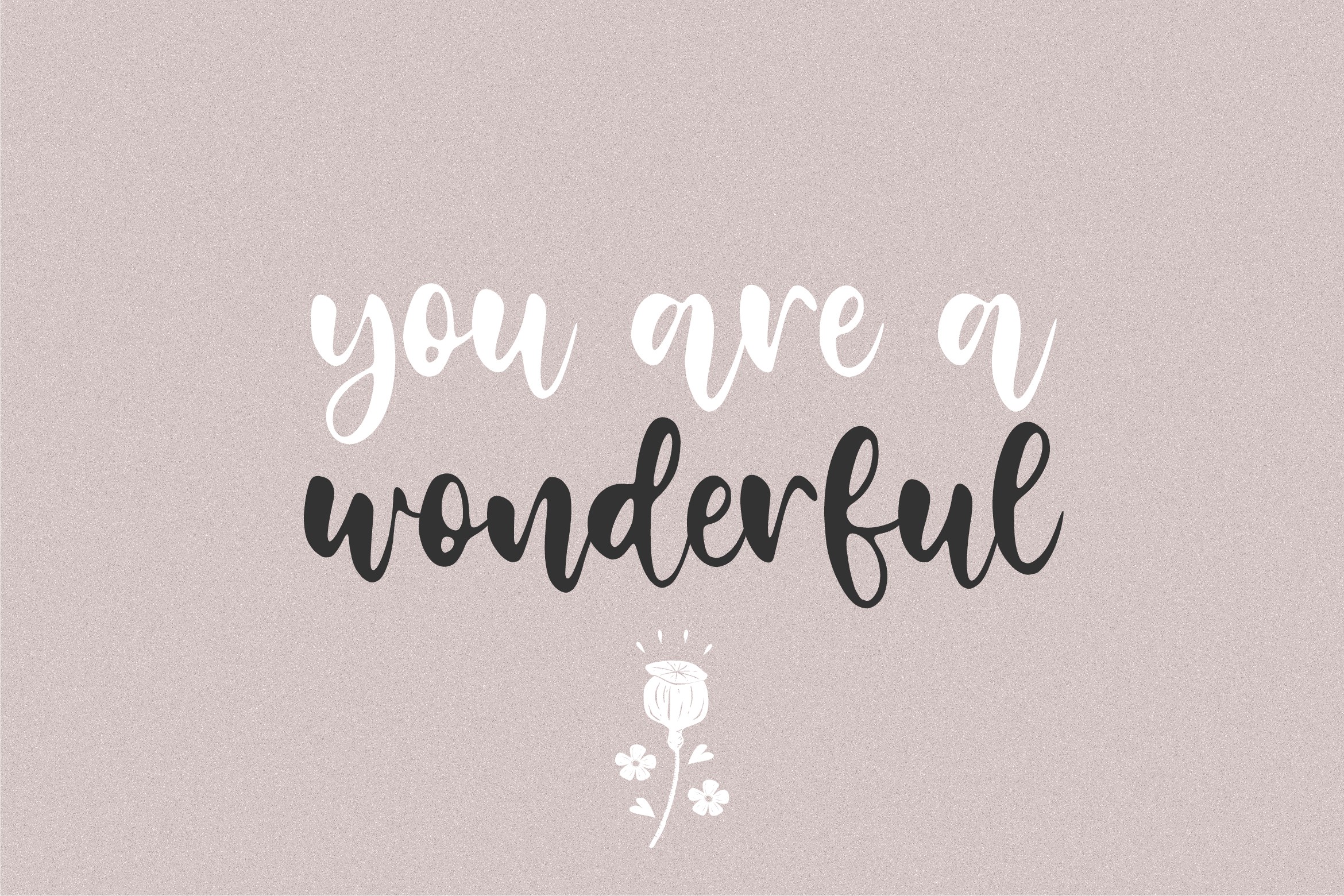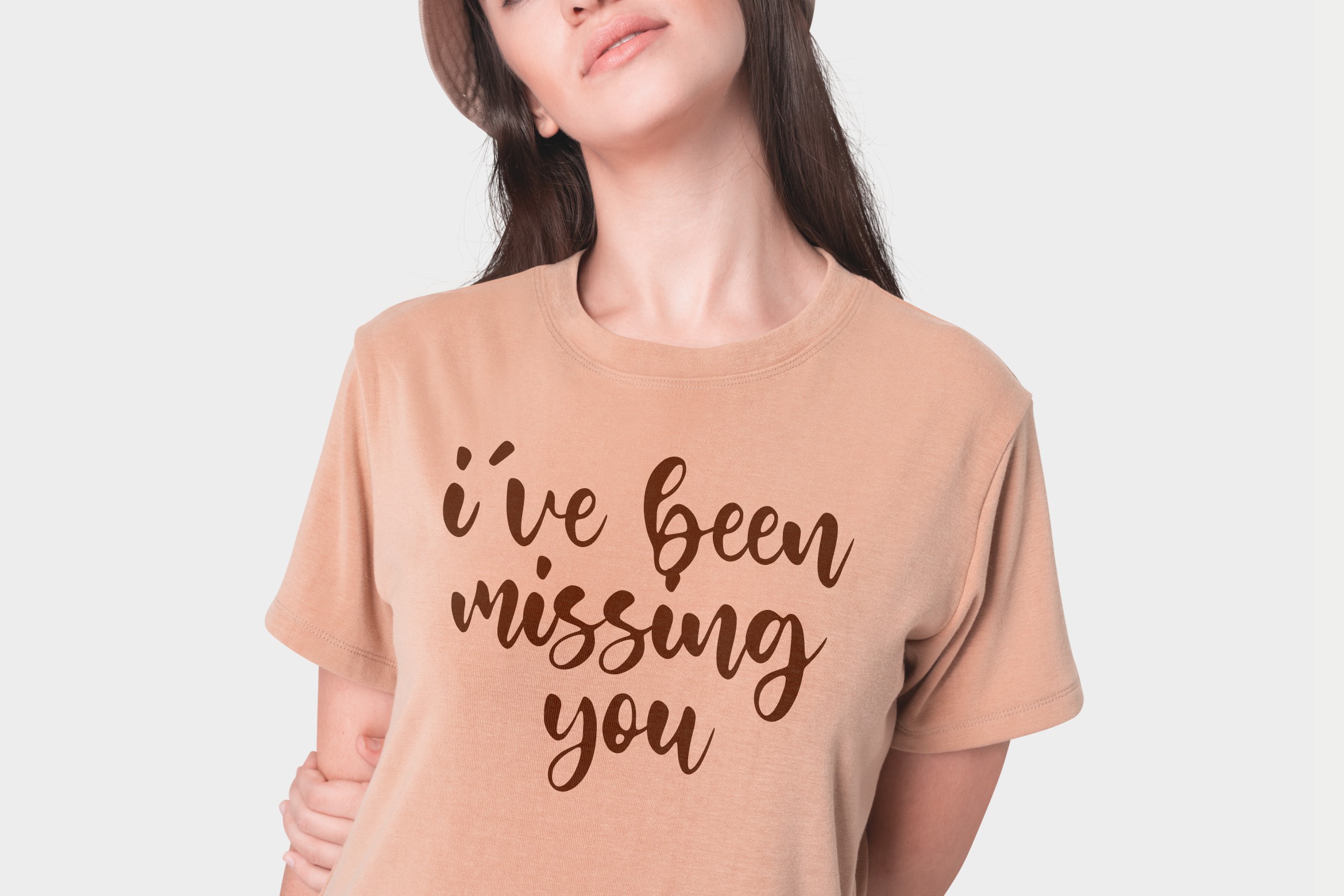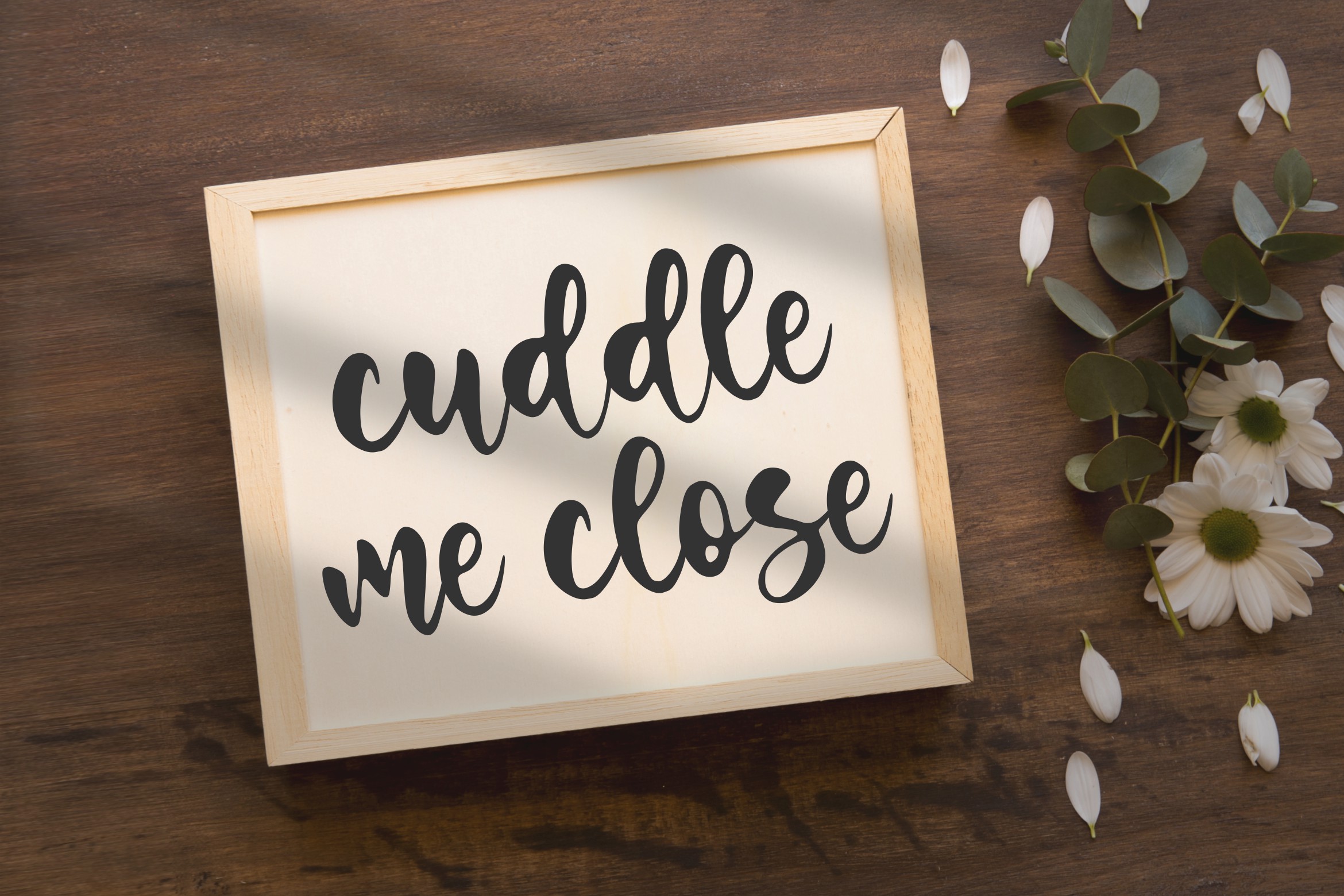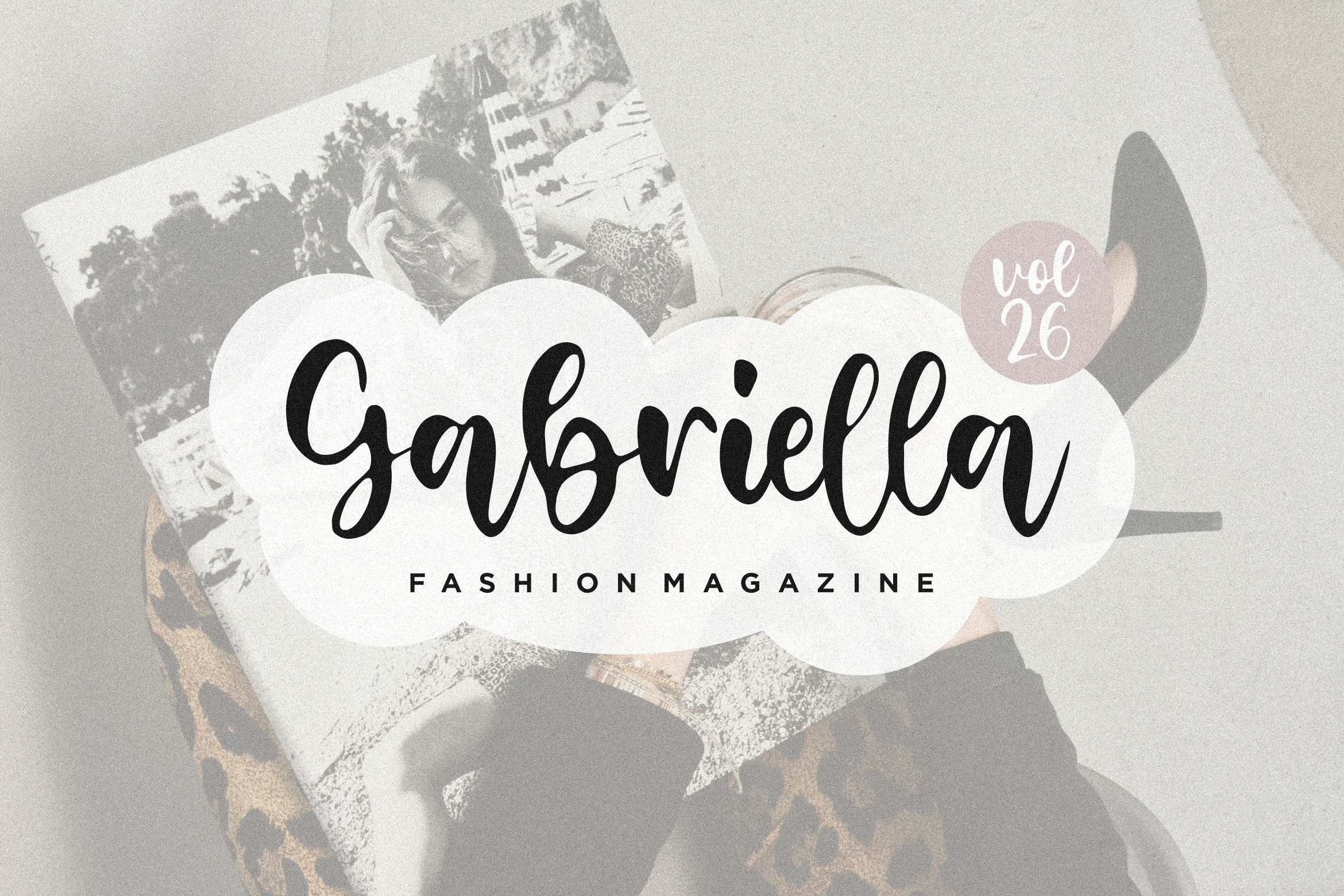
Noiseland Handwritten Font
Introducing by Balpirick Studio.
Proudly Present, Noiseland Font.
Noiseland is a Modern Handwritten Font.
Noiseland is a lovely and delicate script font that exudes elegance and class. This font was particularly crafted for those who need a beautiful and refreshing look to their designs.